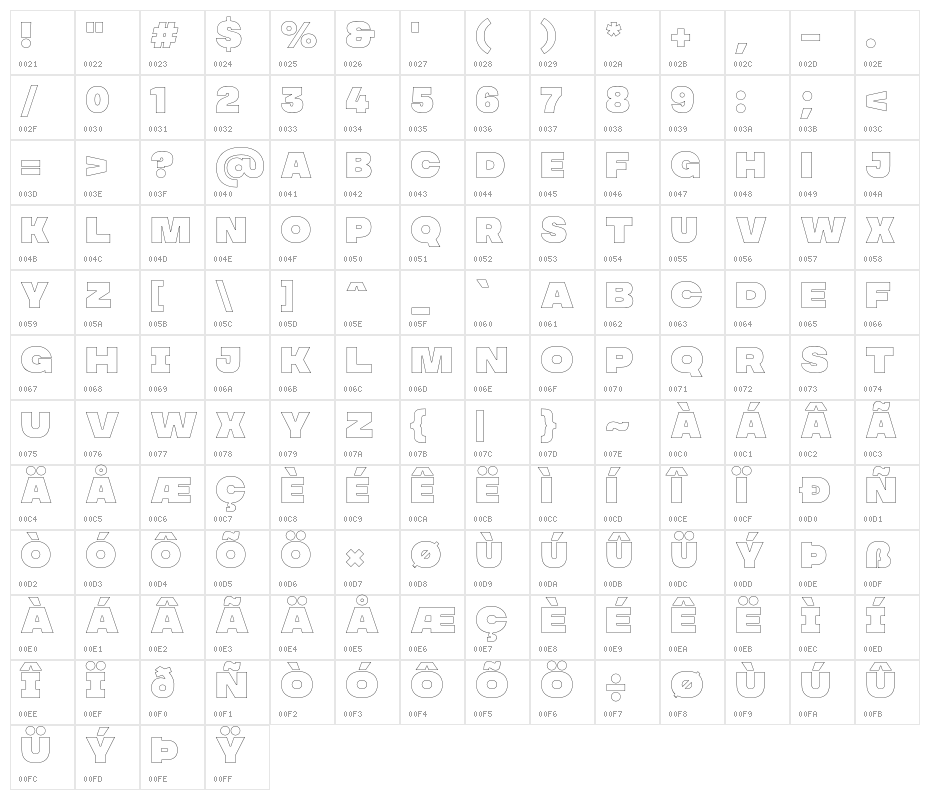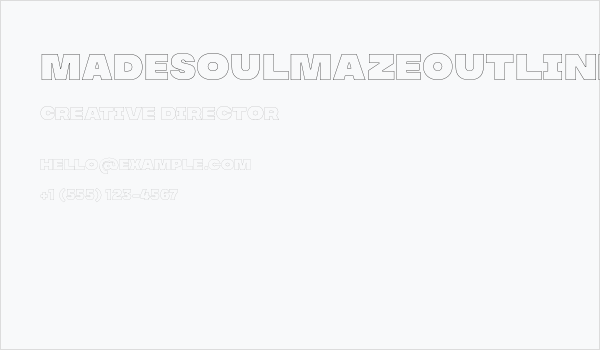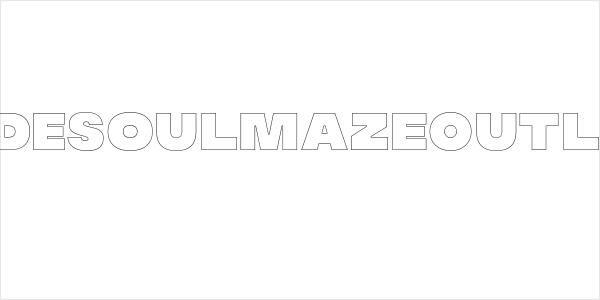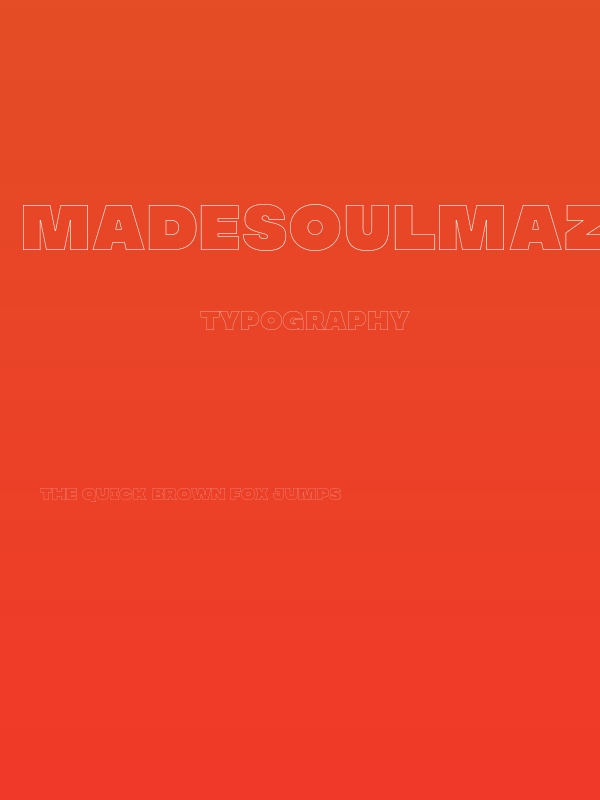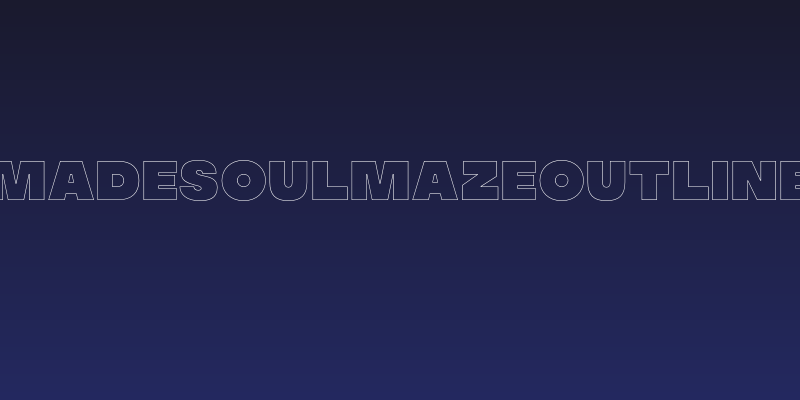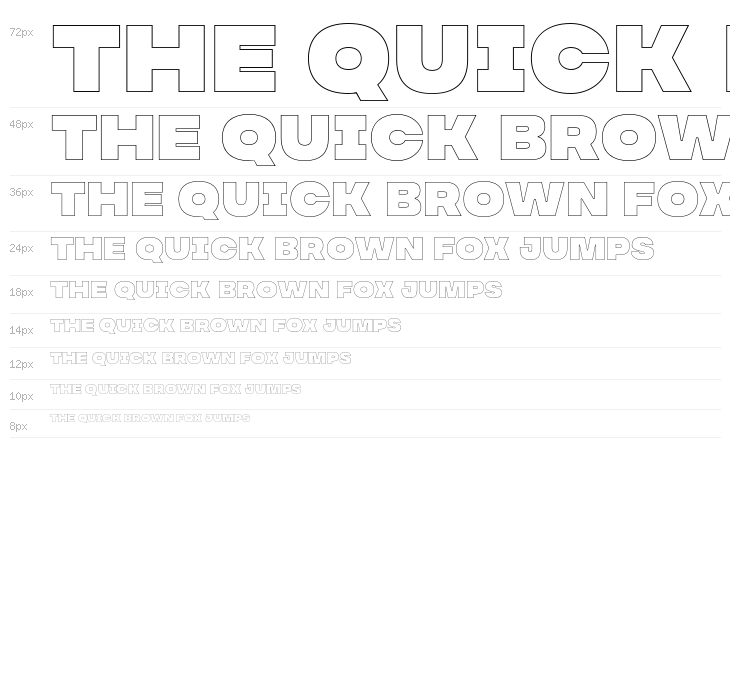
MADESoulmazeOutline Font
MADESoulmazeOutline Description
This font features a bold, geometric design with a distinct outline style. The characters are uppercase and lowercase, with numerals and a variety of special characters. Each letter is crafted with precision, maintaining a consistent thickness throughout the strokes. The outline effect gives it a modern and edgy appearance, making it stand out in any design. The font's structure is clean and easy to read, with a uniform width that adds to its bold presence. The spacing between characters is balanced, ensuring legibility while maintaining its unique style.